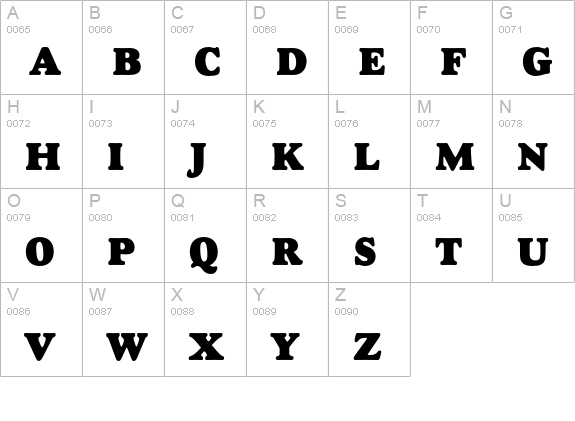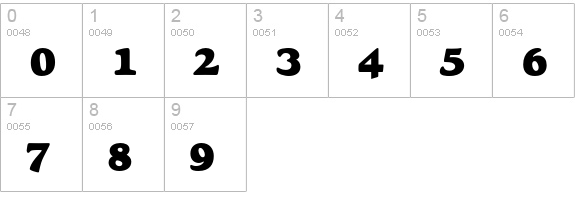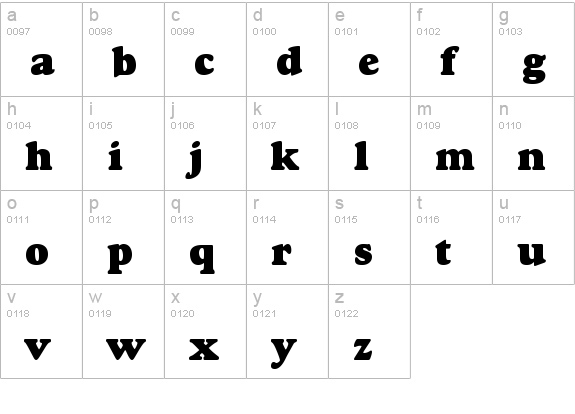
Goudy Heavyface Font Details
Goudy Heavyface font is a timeless and classic typeface that exudes elegance and sophistication. With its bold and distinctive letterforms, this font commands attention and makes a strong visual impact in any design project. The thick strokes and intricate details of Goudy Heavyface give it a sense of authority and grandeur, making it perfect for headlines, titles, and branding materials. What sets Goudy Heavyface font apart is its versatility - it can be used in a variety of design applications, from print to digital media, adding a touch of sophistication and refinement to any project. Whether you're creating a poster, logo, or website, Goudy Heavyface font will make your text stand out and leave a lasting impression on your audience. The best part is that Goudy Heavyface font is free to download at FontsMarket.com. This means you can easily access this exquisite typeface and use it in your projects without any cost. Don't miss out on the opportunity to elevate your designs with the timeless beauty of Goudy Heavyface font - download it for free today!